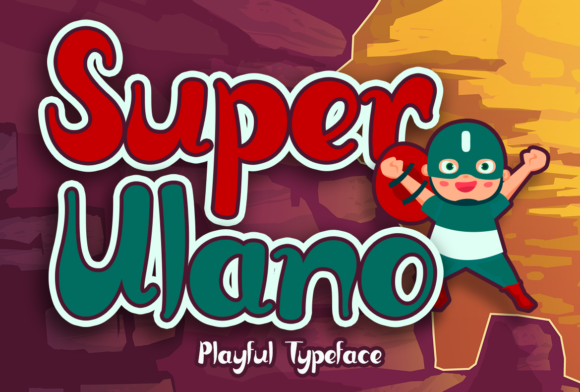
Prepare to be mesmerized by Super Ulano, a display font that unifies retro vibes with a dash of urban cool. Its graceful curves and flexible personality dance across your designs, creating an unforgettable impact.
Whether you're adding a touch of vintage charm to your photo watermarks or breathing new life into your branding, Super Ulano is your go-to font. Each character exudes a playful spirit, ready to transform your projects into works of art.
Embrace the allure of Super Ulano and let your creativity soar. Its retro flair will evoke nostalgia and its undeniable coolness will capture attention. Dive into the world of captivating design and make a lasting impression with Super Ulano today!